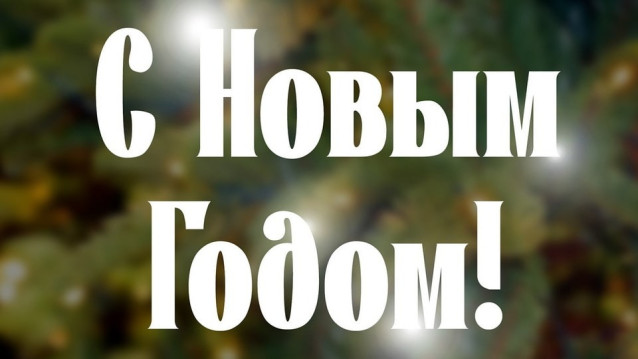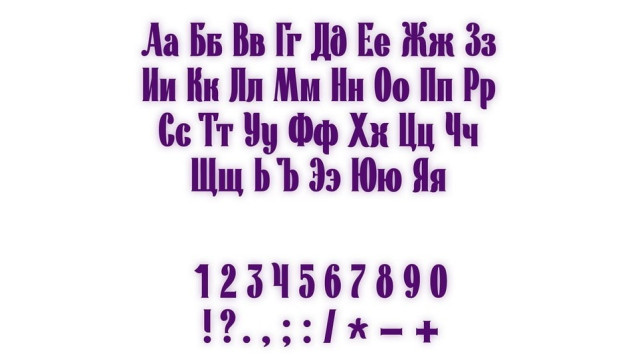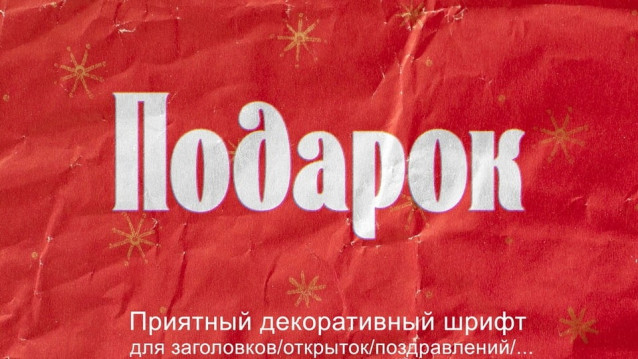
Podarok Font
Podarok Font is a charming decorative display font inspired by the warmth and cheer of holiday gift-giving. With its soft curves, high contrast, and elegant serifs, Podarok evokes the nostalgia of vintage Russian packaging and festive postcards. Its name—meaning “gift” in Russian—perfectly captures the font’s spirit: cheerful, generous, and delightfully festive.
Ideal for headlines, greeting cards, holiday branding, and seasonal packaging, Podarok adds a cozy and celebratory touch to any design. Whether you’re creating winter wonderland invitations or wrapping up a heartfelt message, this font is your beautifully wrapped typographic present.
A perfect typeface for giving your words a little sparkle.